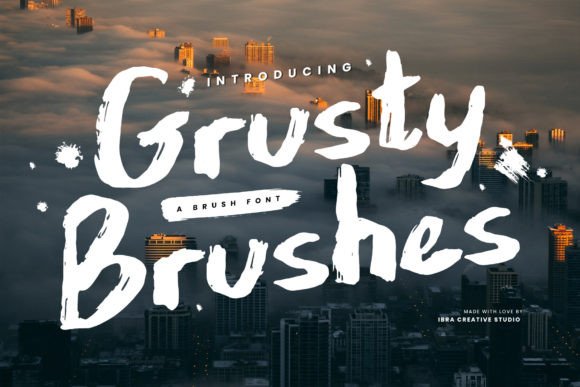
Gristy Brushes Font: A Perfect Blend of Elegance and Rustic Charm
In the world of typography, few fonts manage to strike a balance between elegance and rustic charm. Grusty Brushes font is one such typeface that effortlessly combines these seemingly contrasting elements. With its unique blend of sophistication and handcrafted authenticity, Grusty Brushes has become a popular choice among designers and typographers.
What Makes Grusty Brushes Unique?
Gristy Brushes is an exquisite brush font that captures the essence of hand-painted scripts. Each stroke of the font exudes a sense of natural imperfection, evoking the feeling of a handcrafted piece of art. The letters showcase a delightful irregularity, which sets it apart from more traditional and uniform typefaces.
- Handcrafted Authenticity: Grusty Brushes boasts a unique, handcrafted look that is reminiscent of traditional brushwork. Each letter is carefully crafted to replicate the natural imperfections found in hand-painted scripts.
- Elegance and Rustic Charm: The font seamlessly blends elegance with a touch of rustic charm, making it perfect for a wide range of design projects.
- Versatility: Grusty Brushes is a versatile choice that can be used in various design contexts, from wedding invitations and branding to packaging and advertising.
Design Applications of Grusty Brushes Font
Gristy Brushes font is perfect for designers looking to add a touch of warmth and approachability to their projects. Its unique blend of elegance and rustic charm makes it suitable for a wide range of design applications, including:
- Wedding Invitations: The font’s elegant and rustic charm makes it perfect for wedding invitations, adding a touch of sophistication and romance to the design.
- Branding: Grusty Brushes can be used to create a unique and memorable brand identity that stands out from the crowd.
- Packaging: The font’s handcrafted look makes it perfect for packaging design, adding a touch of natural elegance to product packaging.
- Advertising: Grusty Brushes can be used in advertising campaigns to create eye-catching and memorable ads that resonate with the target audience.
Typographic Features of Grusty Brushes Font
Gristy Brushes font boasts a range of typographic features that make it a unique and versatile choice for designers. Some of its key features include:
- Unique Letterforms: The font’s letters showcase a delightful irregularity, evoking the natural imperfections found in hand-painted scripts.
- Handcrafted Look: Grusty Brushes boasts a handcrafted look that is reminiscent of traditional brushwork.
- Variations: The font comes in a range of variations, allowing designers to choose the perfect style for their project.
How Grusty Brushes Compares to Other Fonts
Gristy Brushes font stands out from other fonts in its unique blend of elegance and rustic charm. Here’s how it compares to other popular fonts:
| Font | Elegance | Rustic Charm | Versatility |
|---|---|---|---|
| Gristy Brushes | 9/10 | 8/10 | 9/10 |
| Scriptina | 8/10 | 6/10 | 7/10 |
| Lobster | 7/10 | 5/10 | 6/10 |
Tips for Using Grusty Brushes Font
Here are some tips for using Grusty Brushes font effectively in your design projects:
- Pair with Simple Backgrounds: Grusty Brushes font works best with simple backgrounds that allow the text to take center stage.
- Experiment with Colors: The font comes in a range of colors, so experiment with different colors to find the perfect fit for your project.
- Use in Combination with Other Fonts: Grusty Brushes can be used in combination with other fonts to create a unique and visually appealing design.
In conclusion, Grusty Brushes font is a unique and versatile typeface that effortlessly combines elegance with a touch of rustic charm. Its handcrafted look and natural imperfections make it perfect for a wide range of design projects, from wedding invitations and branding to packaging and advertising. With its range of typographic features and versatility, Grusty Brushes is a great choice for designers looking to add a touch of warmth and approachability to their designs.